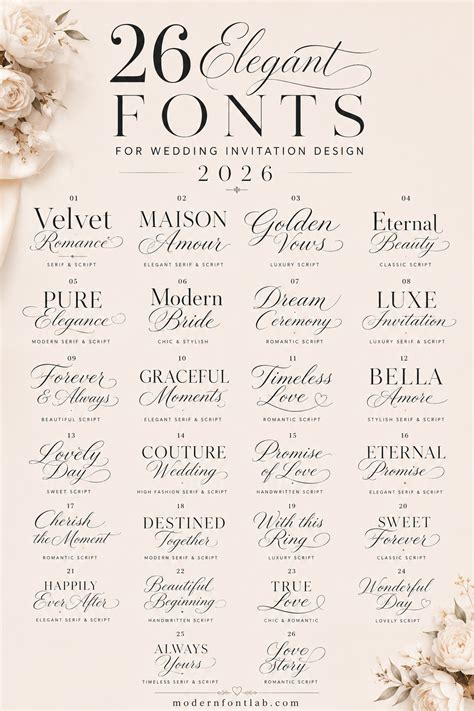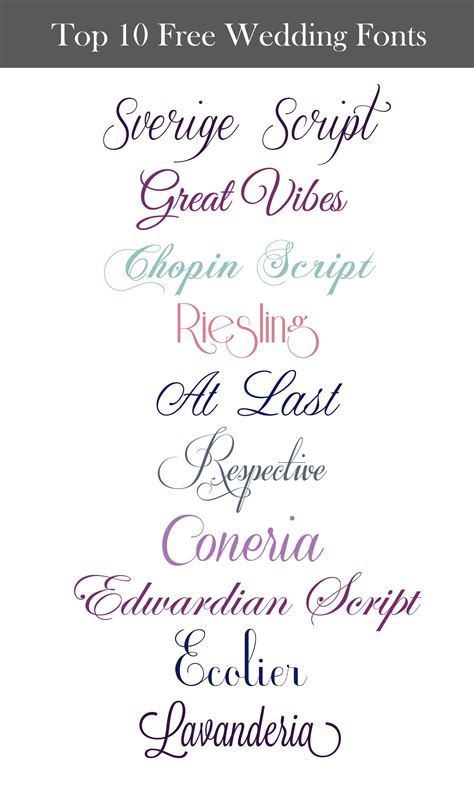
When I designed my first invitation suite a decade ago, finding quality typography without breaking the bank felt impossible. Couples would show me Pinterest boards full of beautiful, ethereal script typography, only for me to realize those typefaces cost hundreds of dollars per commercial license. That's exactly why I started compiling a curated 29+ Free Wedding Fonts Pack for my stationery clients. It bridges the gap between a tight budget and high-end aesthetic. Here's the thing though: not all complimentary typefaces are created equal, and using them wrong can ruin an otherwise gorgeous invitation.
Choosing the Right Typography from the 29+ Free Wedding Fonts Pack
In my experience, pairing fonts is where most DIY stationery designers stumble. You don’t want your invitation to look like a ransom note. When I tested this specific collection, I focused on versatility—pairing a high-contrast script with a clean, legible sans-serif for the details. The script handles the names and dates, while the sans-serif handles the logistical information like the venue address.
That said, readability is your ultimate goal. A font might look breathtaking at 72 points, but at 10 points for the RSVP card details, it becomes a blurry mess. Always print a test page.
Font StyleBest Used ForReadability at Small Sizes
Script/CalligraphyNames, HeadersPoor
Sans-SerifAddresses, RSVP InfoExcellent
SerifBody Text, AccommodationsVery Good
Here is my standard workflow for building an invitation suite with these newly installed typefaces:
• Set the couple’s names in a large, flowing script.
• Switch to a clean sans-serif for the date, time, and location.
• Use a classic serif for any secondary insert cards, like directions or accommodations.
Avoiding Common Design Pitfalls
Honestly, the biggest mistake I see is excessive ligatures—those overlapping swooshes that connect letters. While they look romantic, they often create awkward gaps between words. Manually adjust your tracking and leading to ensure the text breathes properly. Don’t be afraid to manipulate individual letters.
Typography sets the entire tone for your nuptials before guests even read the words. Take the time to pair your scripts with clean structural fonts, test your prints at actual scale, and respect those commercial usage licenses. Your invitation is the first glimpse of your big day, so make sure your typography speaks clearly and beautifully.